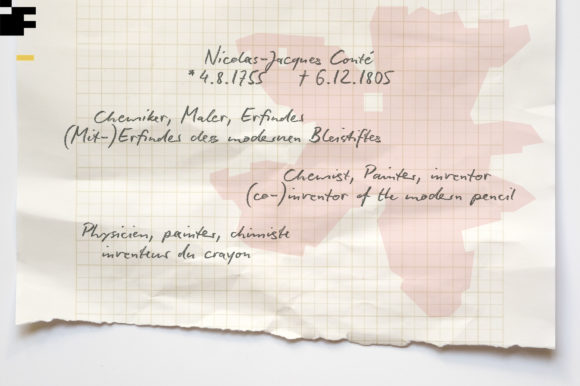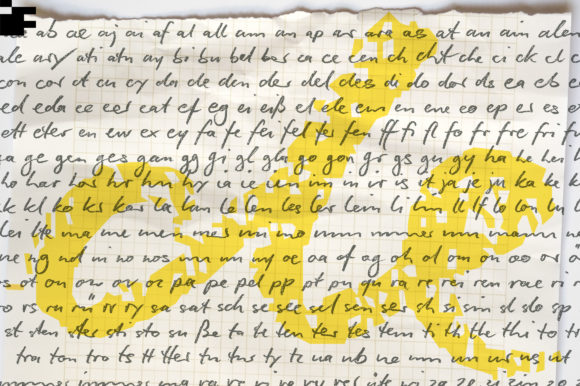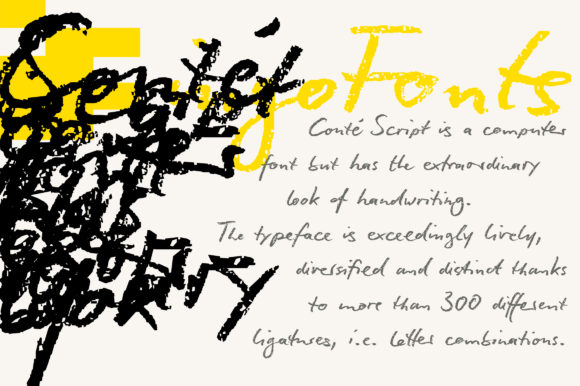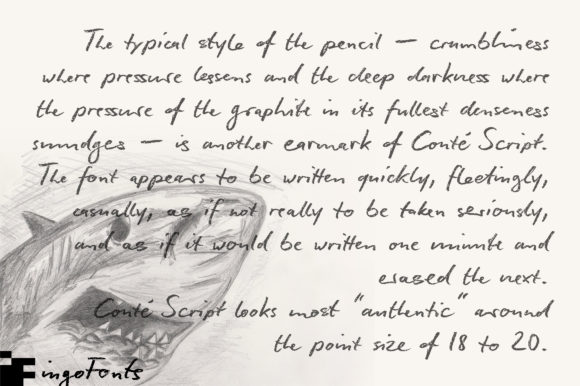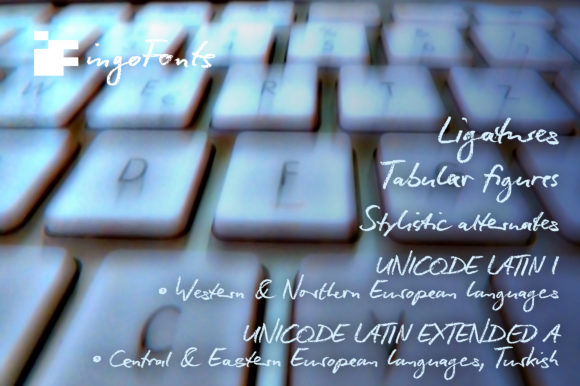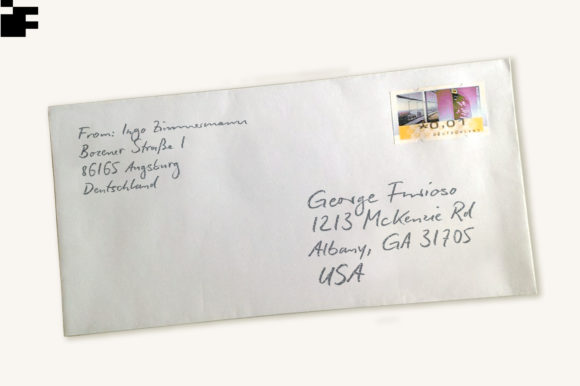
Introducing Conté Script Plus Font: Elevate Your Designs with Authentic Handwritten Flair
Are you on the lookout for a font that can add a touch of elegance and personality to your design projects? Look no further than Conté Script Plus Font. This incredibly authentic handwritten font is designed to inspire and transform your designs into standout creations. With its lovely feel and beautiful characters, Conté Script Plus is the perfect choice for designers and crafters seeking to infuse their work with a unique and captivating aesthetic.
Handwritten fonts have a special place in the world of design. They offer a level of warmth and personal touch that can be difficult to achieve with more traditional fonts. Conté Script Plus Font is a shining example of the beauty and versatility of handwritten fonts. Its authentic, hand-crafted appearance makes it an excellent choice for a wide range of design applications, from elegant branding and packaging to charming invitations and creative crafts.
Key Features of Conté Script Plus Font
- Authentic Handwritten Appearance: Conté Script Plus boasts an incredibly authentic handwritten look, complete with subtle variations and imperfections that give it a genuine, crafted feel.
- Lovely Feel: The font’s design ensures a lovely feel that is both pleasing to the eye and highly readable, making it suitable for both short phrases and longer passages of text.
- Beautiful Characters: Each character in Conté Script Plus is meticulously designed to contribute to the overall beauty and charm of the font, ensuring that your designs stand out.
- Versatility: Whether you’re working on a branding project, crafting beautiful stationery, or creating engaging digital content, Conté Script Plus can adapt to your needs, adding a touch of elegance and personality to your work.
Using Conté Script Plus in Your Designs
The versatility of Conté Script Plus Font makes it suitable for a wide range of design projects. Here are a few ideas to get you started:
- Branding and Logo Design: Use Conté Script Plus to create a memorable logo or to develop a cohesive brand identity that stands out from the crowd.
- Stationery and Invitations: Add a personal touch to your stationery, invitations, and greeting cards with the charming and elegant feel of Conté Script Plus.
- Digital Content: Enhance your website, blog, or social media content with the authentic handwritten look of Conté Script Plus, making your digital presence more engaging and unique.
- Crafts and DIY Projects: For crafters and DIY enthusiasts, Conté Script Plus can be used in a variety of projects, from scrapbooking and journaling to crafting custom signs and decor.
Why Choose Conté Script Plus Font?
In a world where design trends come and go, Conté Script Plus Font stands out for its timeless appeal and versatility. Here are a few reasons why designers and crafters are choosing Conté Script Plus:
- Unique Aesthetic: The font’s authentic handwritten appearance offers a unique aesthetic that can help your designs stand out.
- Ease of Use: Conté Script Plus is designed to be user-friendly, making it easy to incorporate into your projects, regardless of your design experience.
- Inspiration and Creativity: With Conté Script Plus, you’ll find endless inspiration for your designs. The font’s beautiful characters and lovely feel can spark creativity and elevate your work.
Conté Script Plus Font is a remarkable addition to any designer’s or crafter’s toolkit. Its incredibly authentic handwritten appearance, lovely feel, and beautiful characters make it the perfect choice for those looking to add a touch of elegance and personality to their projects. Whether you’re working on branding, stationery, digital content, or crafts, Conté Script Plus is sure to inspire and transform your designs into standout creations. So why wait? Explore the possibilities with Conté Script Plus Font today and take your designs to new heights.